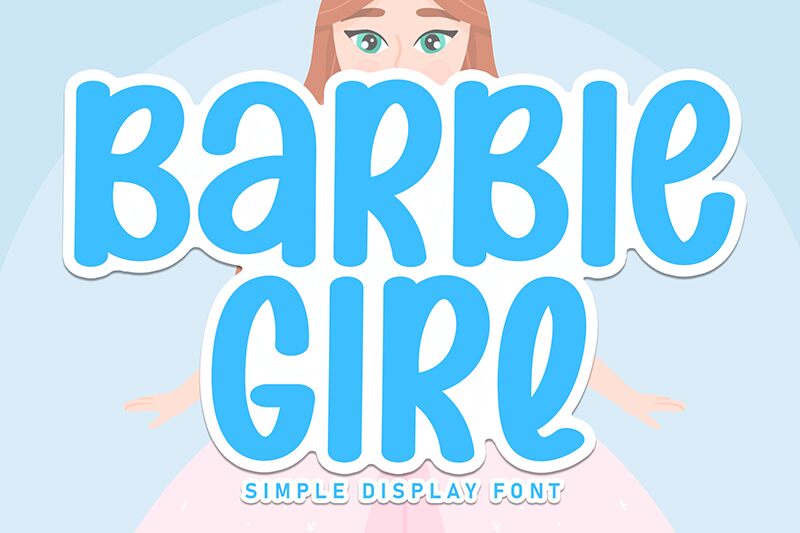
Barbie Girl
Barbie Girl font by Scratchones is a retro-inspired free brush font, combining 90s nostalgia with a friendly and approachable appearance. With its condensed width, the typeface is inviting to all readers and delivers pleasant reading experiences in large and small sizes.
Use Barbie Girl in packaging designs, branding projects, and advertising. Create hand-drawn logos for cafés or shops, decorate stationery items such as invitation cards or postcards or write comic book texts and cocktail menus.